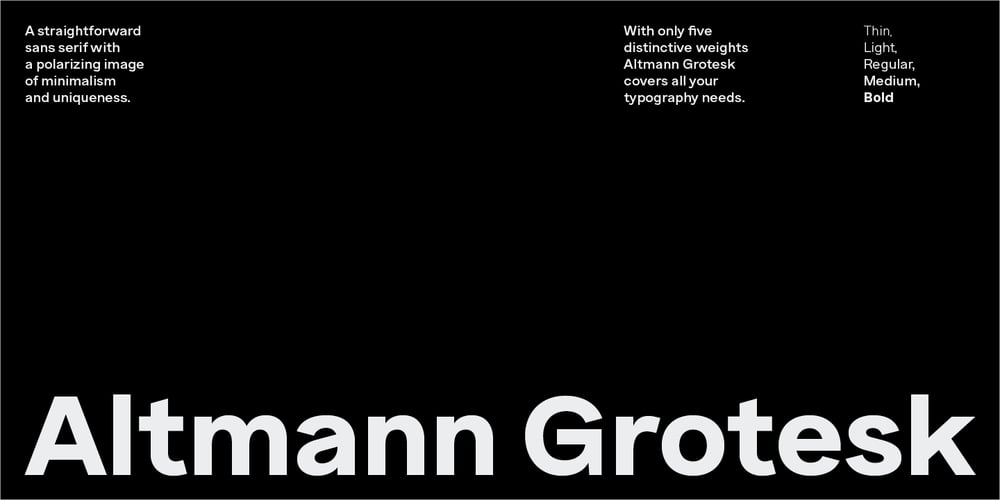
Altmann Grotesk Font Family was designed by Christian Altmann, Janik Sandbothe and published by Ateljé Altmann. Altmann Grotesk contains 5 styles and family package options. Altman Grotesk was initially planned as an internal studio typeface for the graphic design studio Ateljé Altmann based in Stockholm, Sweden. After thoroughly researching both classic and contemporary sans serif typefaces, the aim for Altmann Grotesk was set at joining unobtrusiveness yet distinctiveness in one look. As a result, the sans serif successfully embraces a polarizing image of minimalism and uniqueness.During the design process of Altmann Grotesk, it soon became clear that it had the potential to be more than a studio typeface—which ultimately led to a sans serif font family with five distinctive weights that are perfected to fit every possible typography use case.